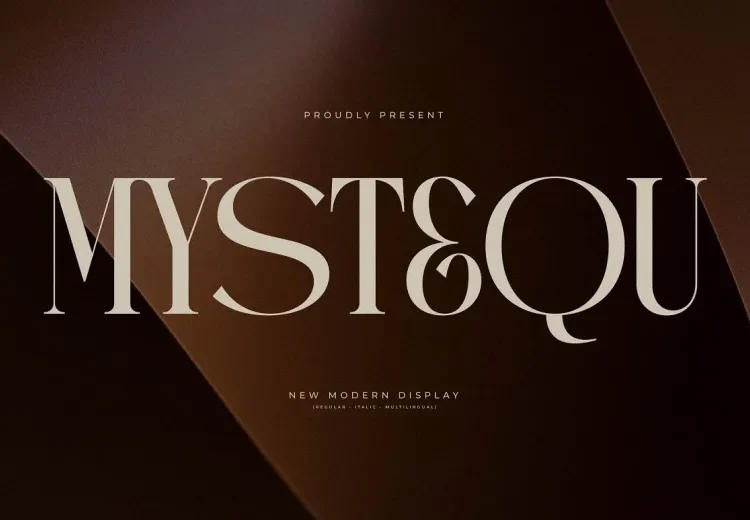
Mystequ Font
Discover Mystequ, an elegant display serif font crafted with a distinctive style and contemporary flair. Ideal for:
• Classy Logos
• Movie and Book Titles
• Fashion Brand Clothing Lines
• Magazine Letters and Quotes
• Various Other Projects
Mystequ adds a touch of sophistication and modernity to any design, making it a versatile choice for high-impact visuals.